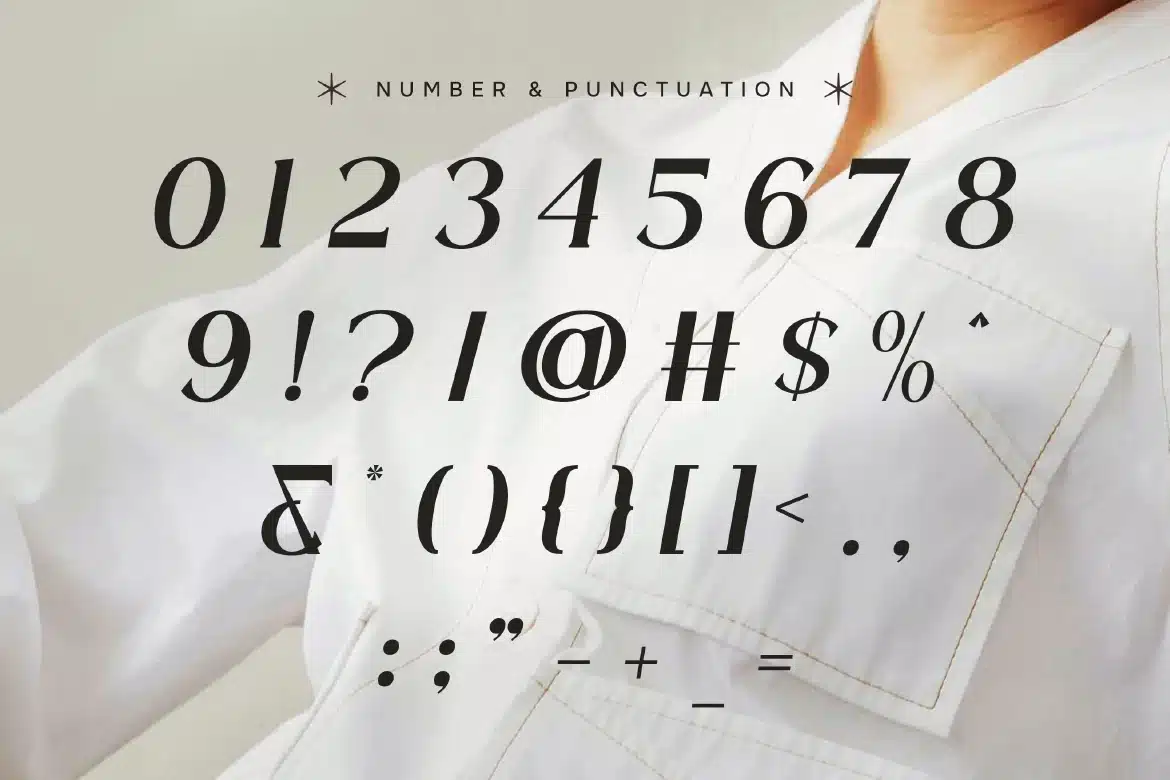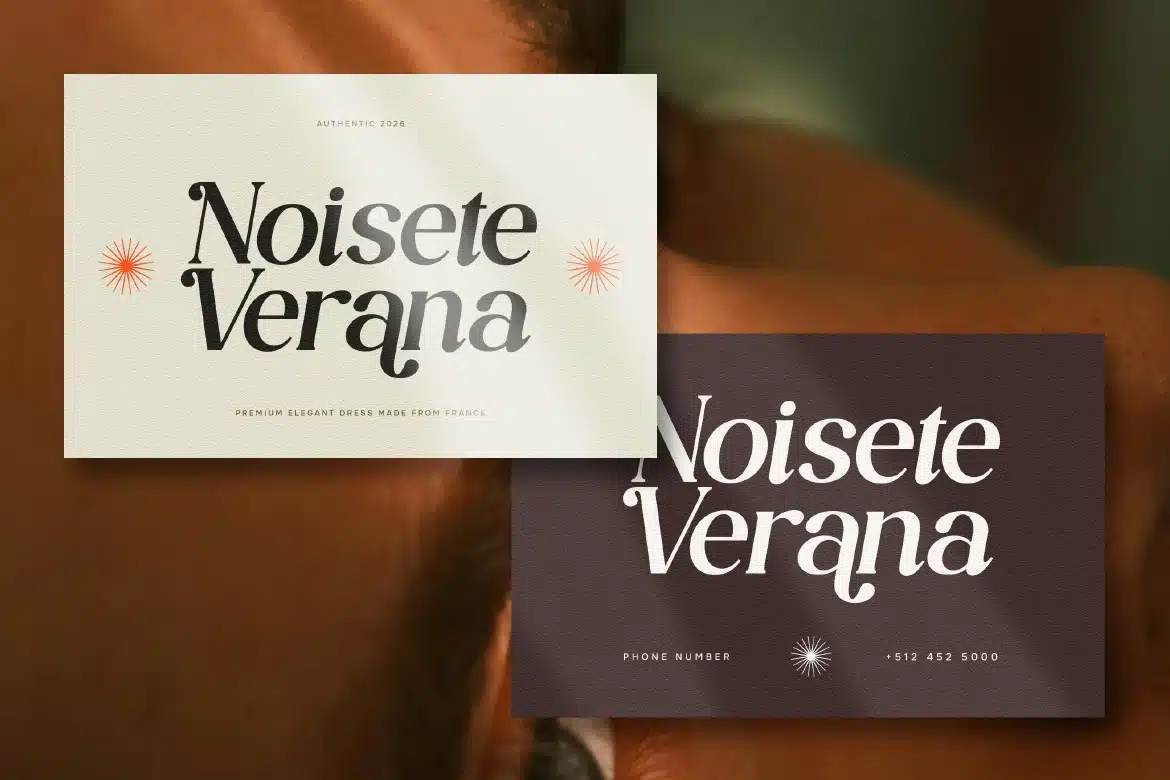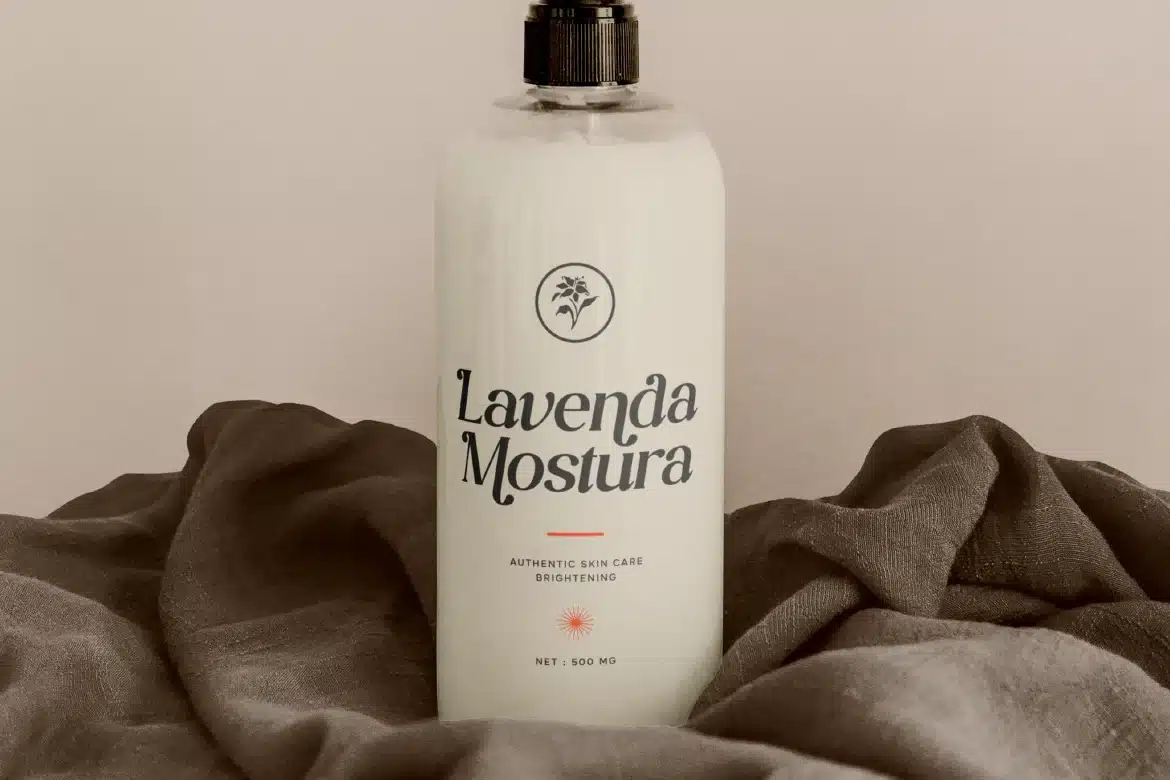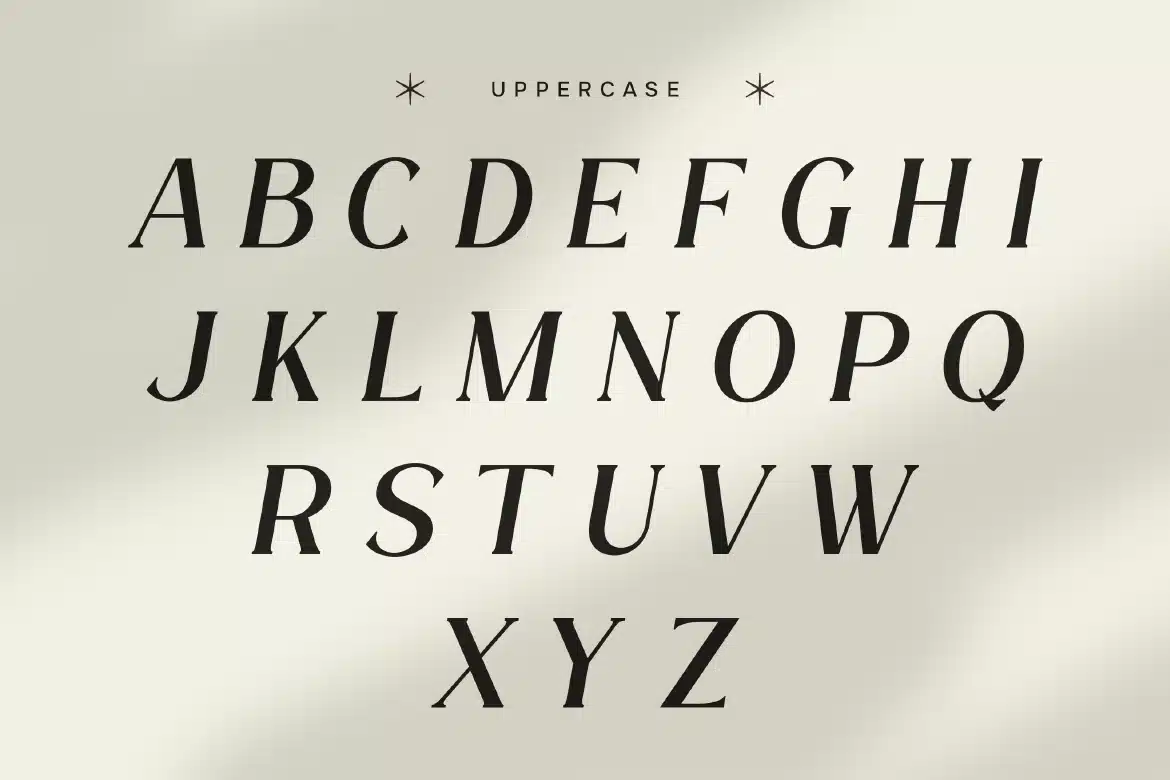
Elegant Italic Serif Font – Bellavere
Elegant Italic Serif Font - Bellavere
Bellavere is an elegant italic serif font designed to express grace, refinement, and timeless beauty. With its flowing italic style, delicate serif details, and balanced proportions, Bellavere creates a soft yet sophisticated typographic appearance. The slanted letterforms add a sense of movement and elegance, making the font feel beautiful while maintaining clarity and readability. Its refined structure and smooth curves give a luxurious and stylish impression, perfect for designs that require a touch of class and subtle sophistication.
Who Should Use Bellavere?
Bellavere is ideal for designers, creatives, and brands looking for an italic serif font that delivers elegance, flow, and a refined visual identity.
Logo and brand identity design
Fashion and beauty branding
Editorial layouts and magazine headlines
Wedding invitations and stationery
Packaging and product labels
Social media graphics
Website headers and digital design
Elegant display typography